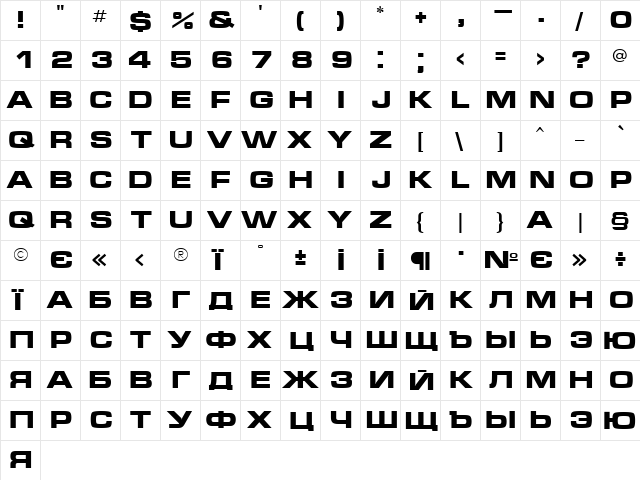
font348 Bold Font Preview
font348 Bold
font348 Bold Font Details
Design Context for font348 Typeface
font348 is a composed and adaptable typeface that performs quietly and consistently across a wide range of design contexts. Its bold stroke weight gives it real presence on the page.